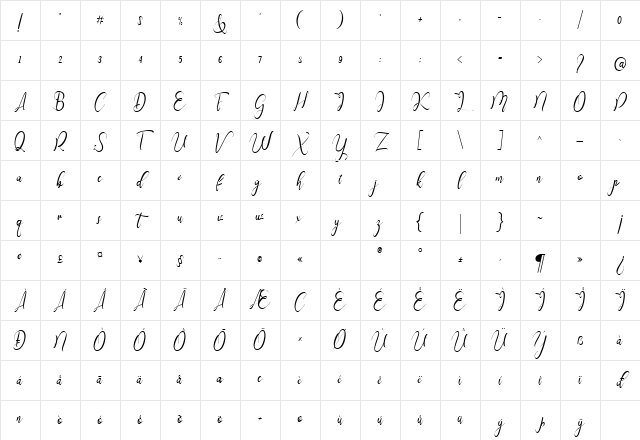
Chinthya Free Regular Free Font
Chinthya Free Regular
Foundry: Namara Creative Studio
Designer: Eep Apringga | Namara Creative Studio
Design Context for Chinthya Free
Chinthya Free is a composed and adaptable typeface that performs quietly and consistently across a wide range of design contexts.